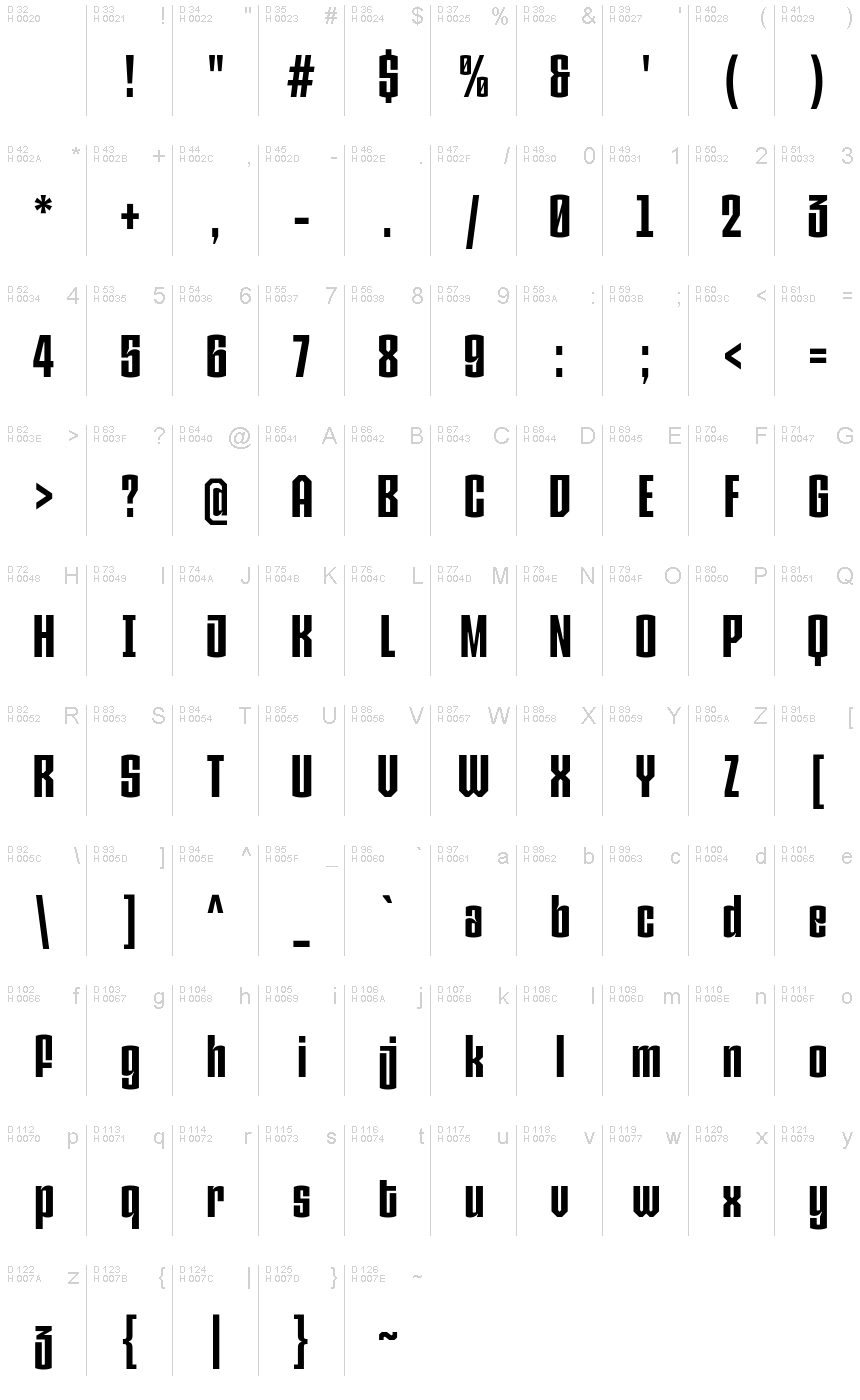
TT Carvist Trial Bold
TT Carvist Bold font from the TT Carvist family, crafted by TypeType Foundry, epitomizes modern elegance with its unique condensed sans serif style. This bold font stands out with its striking geometric forms and clean lines, making it an ideal choice for attention-grabbing headlines and impactful design projects.
Harnessing a perfect blend of aesthetics and functionality, TT Carvist Bold excels in editorial layouts, branding materials, and digital interfaces. Its distinctive character adds a contemporary edge to any creative venture.